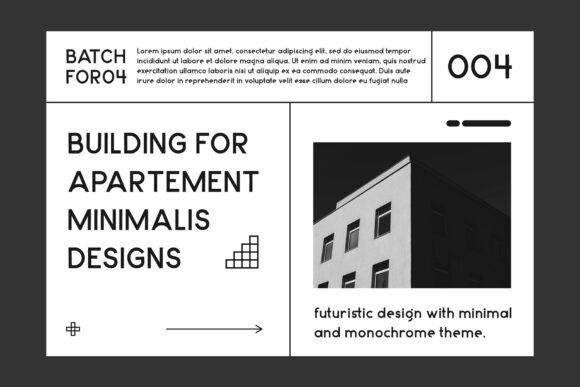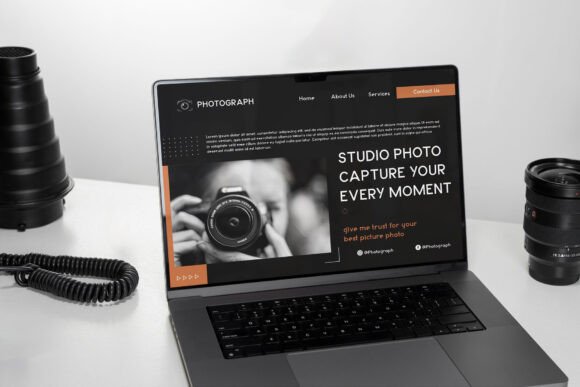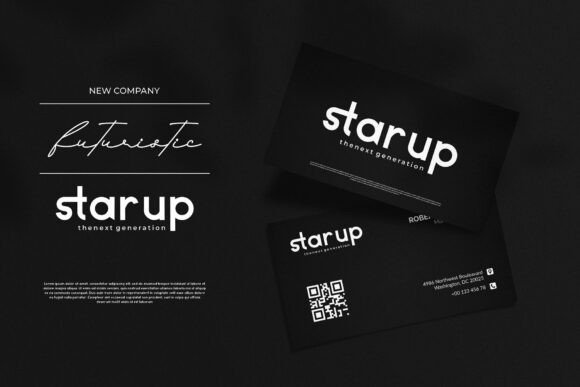
Introduction to Legand Font
Have you ever been stuck on a creative project, staring blankly at your computer screen, searching for the perfect font to bring your vision to life? It’s that moment when you’re about to give up, but then, like a breath of fresh air, you stumble upon the perfect design resource. For many designers, that moment came when they discovered the Legand Font.
This high-quality sans serif font is a game-changer for any creative project. With its modern, elegant, and futuristic look, the Legand Font is perfect for a wide range of designs, from invitation card designs to company logos, and even movie titles. And the best part? It’s available for free download, making it an invaluable addition to any designer’s toolkit.
Key Features of Legand Font
• High-quality design: Legand Font is designed to provide a unique and creative look for your projects.
• Large character set: The font includes a wide range of characters, including uppercase and lowercase letters, numbers, and special characters.
• Perfect for creative projects: Legand Font is ideal for use in creative projects, such as logos, graphics, and typography-based designs.
Honest Review: Legand Font
I recently stumbled upon the Legand Font, a design resource that caught my attention due to its high quality and free download option. As a designer, I appreciate the fact that this font is easily accessible and can be used for any creative project.
What works well for me is the clean and modern design of the Legand Font. It features a transparent background, which allows for seamless integration with various design elements. The font’s versatility makes it suitable for a wide range of applications, from digital media to print materials.
Here are some of the key features that I like about the Legand Font:
• High-quality design that exudes professionalism
• Modern and clean design that appeals to a wide audience
One limitation I’ve noticed is that the Legand Font may not be suitable for projects that require a more traditional or ornate design style.
Overall, I’m impressed with the Legand Font and would definitely recommend it to fellow designers. Its high quality, versatility, and free download option make it a valuable resource for any creative project. ⭐️⭐️⭐️⭐️⭐️
Tips for Getting the Most Out of Legand Font
Use the Legand Font with a transparent background to create a modern and sleek design. Experiment with different font sizes and styles to add depth and visual interest to your design. You can also combine the Legand Font with other design elements, such as images and graphics, to create a unique and creative project.
The Legand Font is suitable for a variety of creative projects, including branding, marketing materials, and digital graphics. Its high-quality design and transparent background make it an excellent choice for designers looking to create modern and stylish designs.